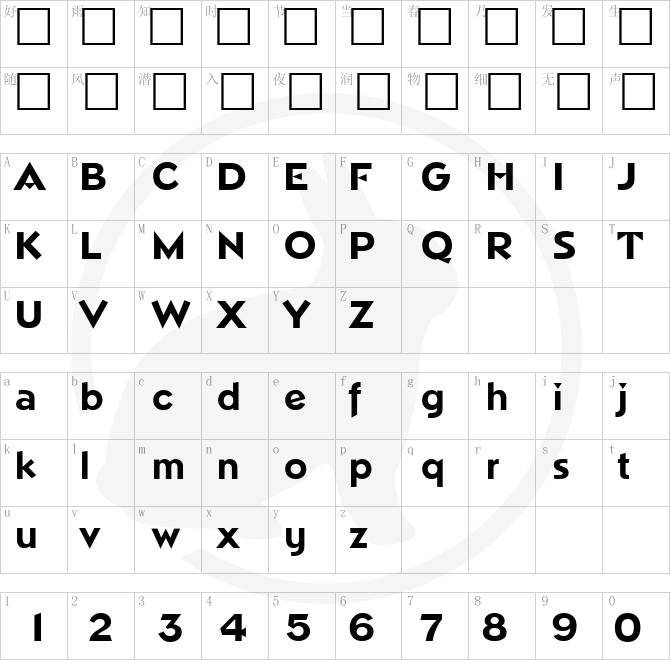
- Font Name:Napoli-Bold
Napoli-Bold.ttf is a very beautiful artistic font, Napoli-Bold.ttf is widely used in the design and printing of various books and pictures,Napoli-Bold.ttf has a strong visual impact,Napoli-Bold.ttf is a commonly used font in newspapers, magazines and books, and is used in posters, e-commerce Poster design, store design, logo design, font design and other fields.Napoli-Bold.